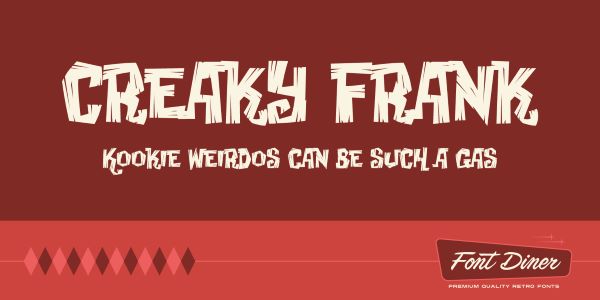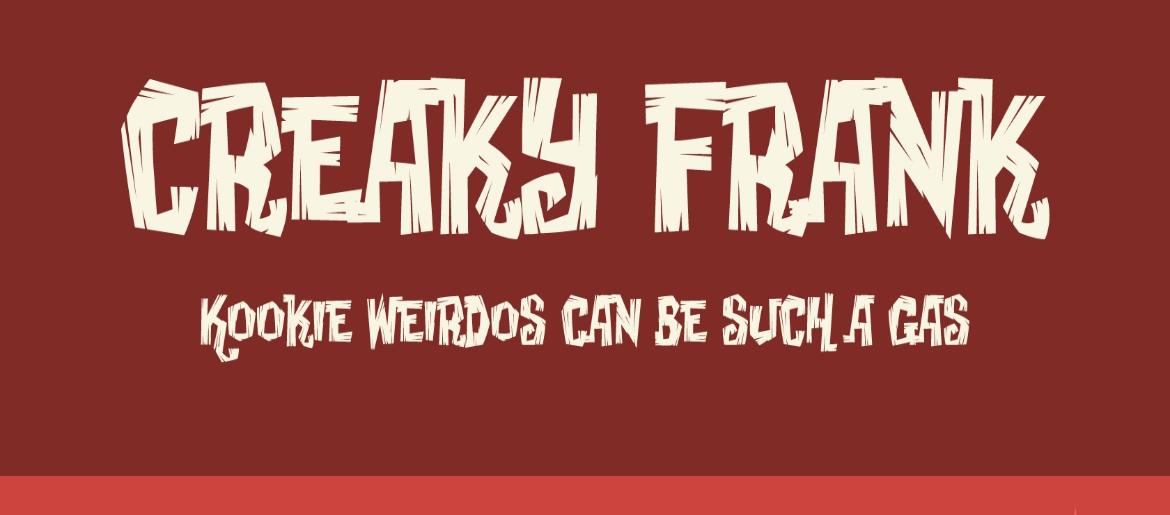
Creaky Frank Font
Creaky Frank by Font Diner is a charming wood-style display typeface with an unmistakably cartoon personality — the kind of lettering that feels right at home in animated universes and hand-crafted creative projects alike. Its chunky, organic letterforms carry a warmth and playfulness that translate effortlessly to children’s books, comic books, event posters, website headers, and anywhere a touch of crafted character is needed. Broad enough in appeal to span Halloween themes, tropical settings, and outdoor adventures. Free for personal use.